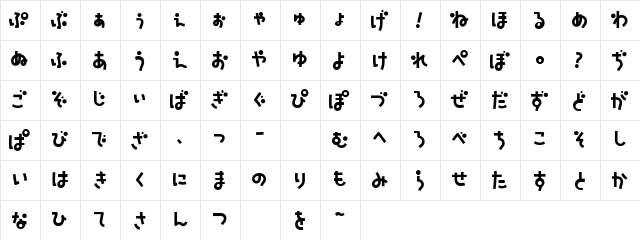
NatsumikanHIR Regular
Design Context for NatsumikanHIR Typeface
NatsumikanHIR offers clean, dependable letterforms without strong stylistic allegiance, making it a practical choice for designers who need flexibility.